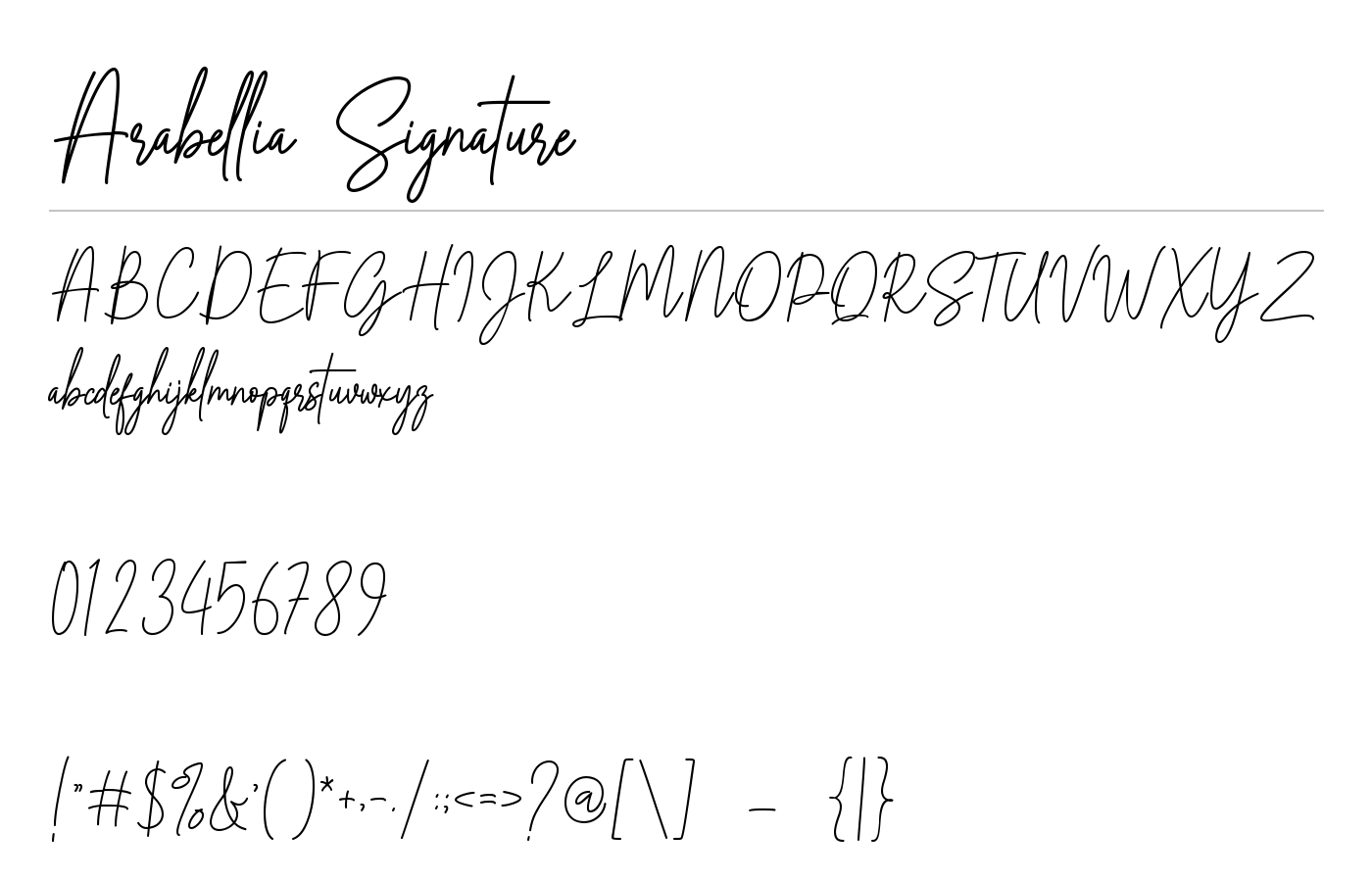
Arabellia Signature is a delicate, elegant script font with a handwritten feel, featuring tall, thin strokes and a graceful flow that mimics natural penmanship. Its light weight and airy spacing make it perfect for stylish logos, wedding invitations, and branding that seeks a personal, sophisticated touch. This font shines in contexts where a refined, modern, and intimate tone is desired.
Arabellia Signature Font
About Arabellia Signature Font
| Designer | (MJB Letters). 2021. (Muhammad Mujibulloh) |